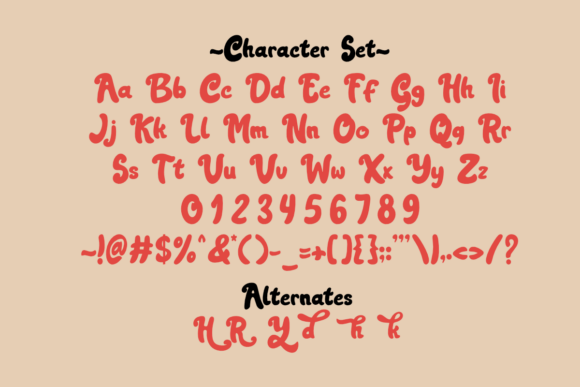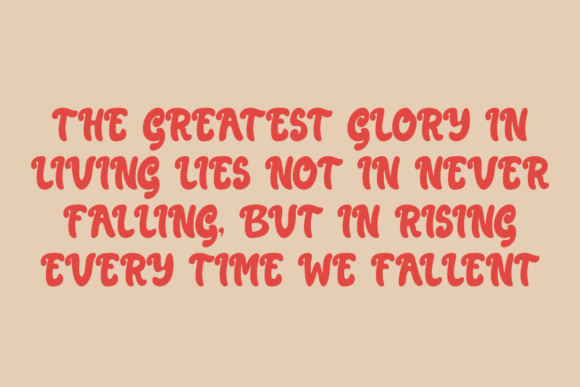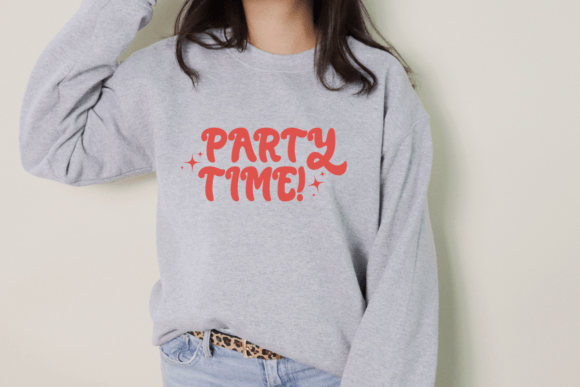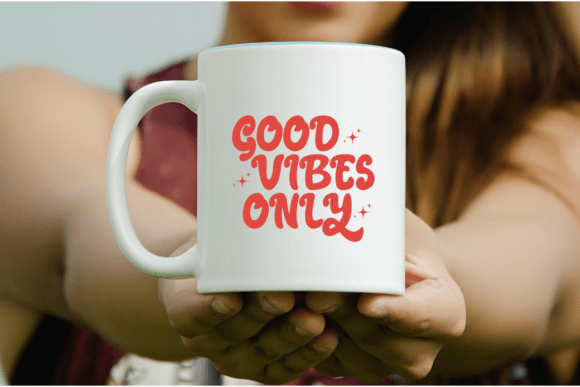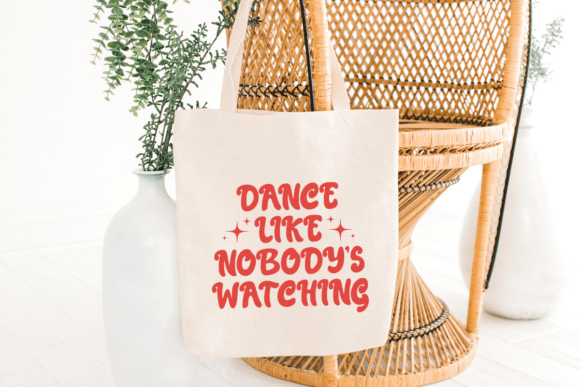
Introduction to Hydra Hybrid Font
Hydra Hybrid is a retro and playful display font full of character and charm.
With its unique design that blends nostalgia and vibrancy, this font is the perfect choice to elevate your creative projects Ideal for crafting, DIY, branding, and KDP interior, Hydra Hybrid works beautifully for planner designs, logos, greeting cards, merchandise, and product promotions.
Key Features of Hydra Hybrid Font